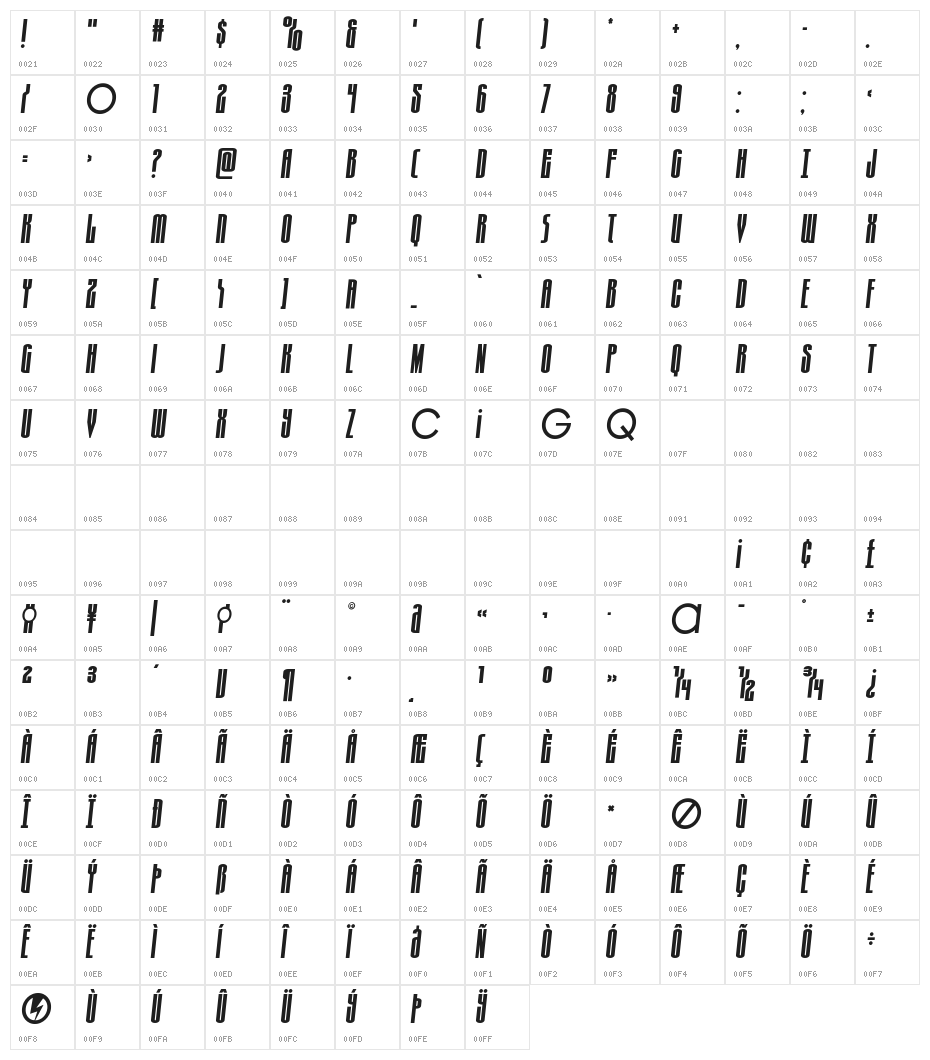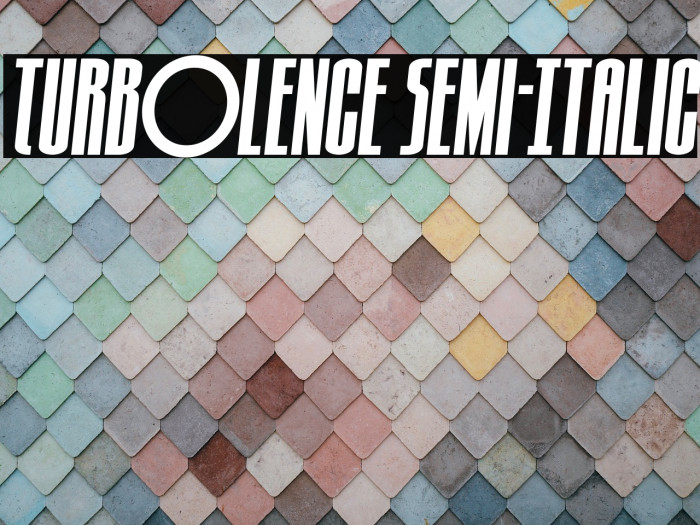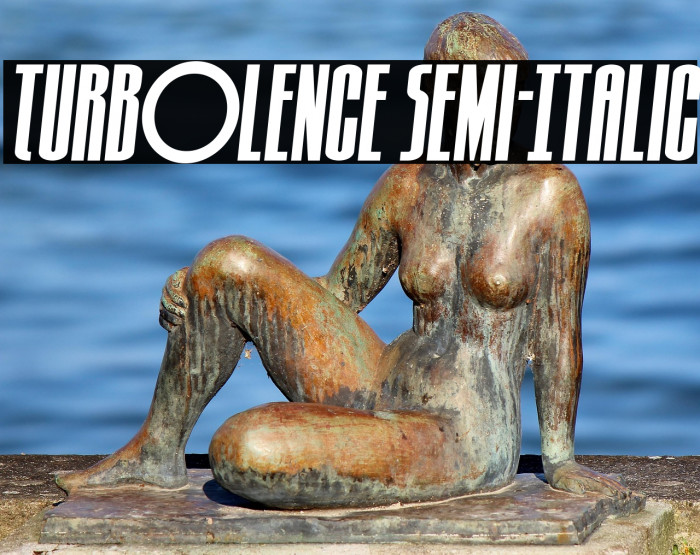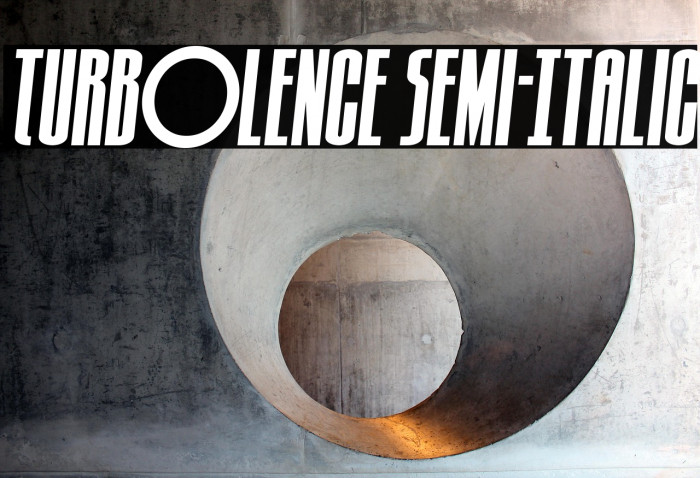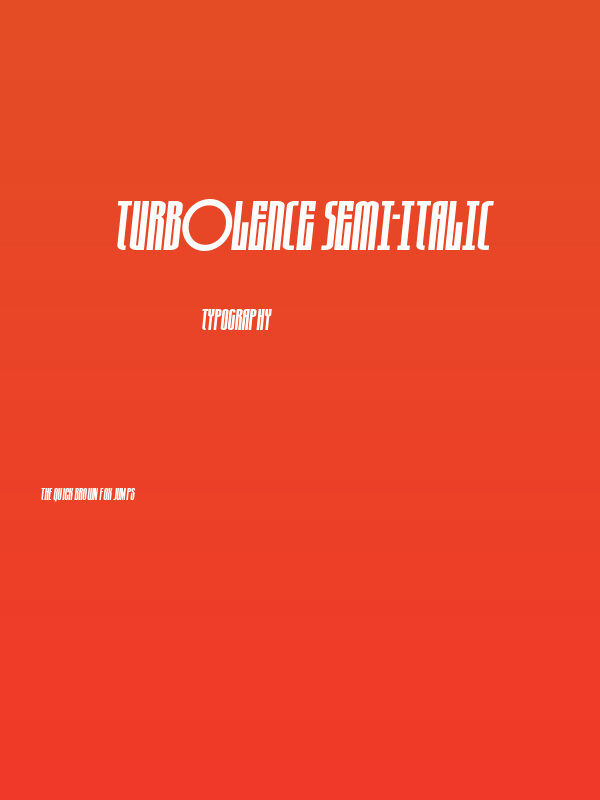
Turb0lence Semi-Italic Font
Turb0lence Semi-Italic Description
This font features a bold and dynamic style with a semi-italic slant, giving it a sense of motion and energy. The characters are tall and narrow, with a condensed width that emphasizes verticality. The strokes are thick and consistent, providing a strong visual impact. The design includes uppercase and lowercase letters, numerals, and a variety of special characters, all maintaining the same bold and slanted aesthetic. This font is ideal for projects that require a modern and energetic look, such as sports branding, dynamic posters, or eye-catching headlines.
| Proposed Projects | Ideal for sports branding, dynamic posters, and eye-catching headlines. |